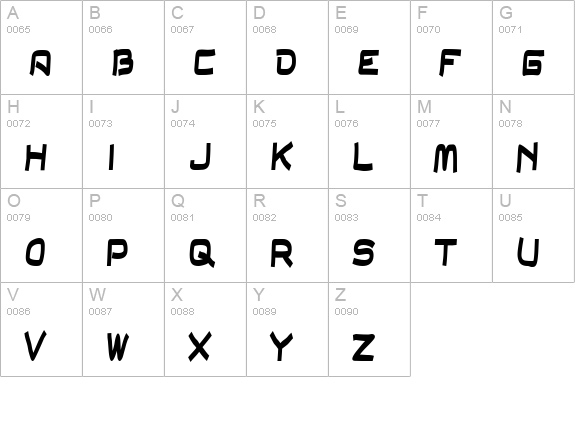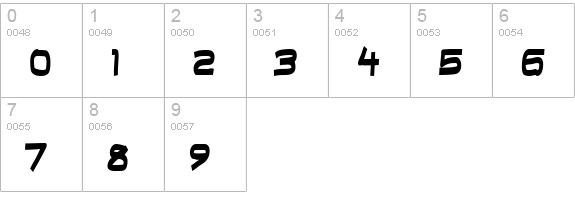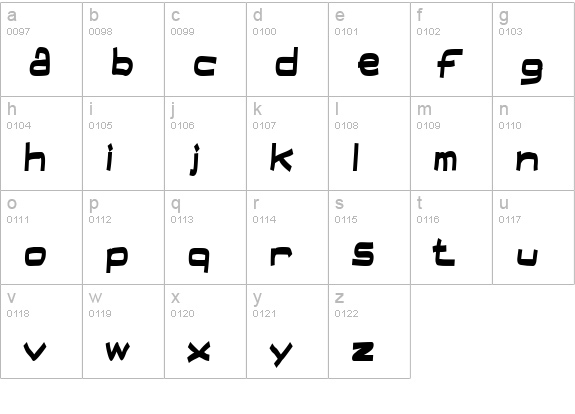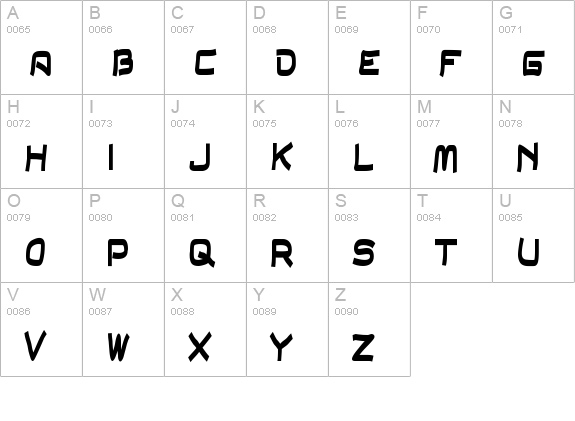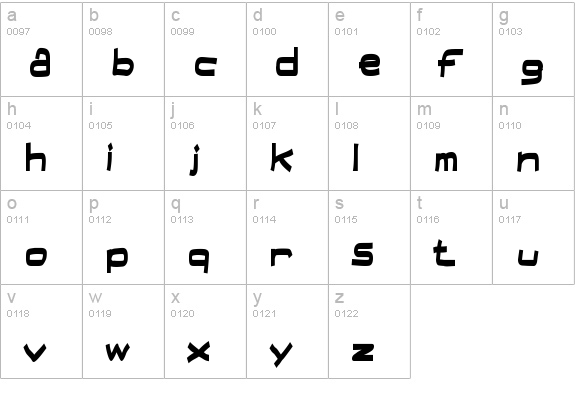
FieldDayFilter font is a modern and stylish typeface that exudes creativity and energy. Its unique design features clean lines and playful curves, making it perfect for adding a touch of fun to your projects. Whether you're working on a poster, logo, or website design, FieldDayFilter font will surely make your text stand out. The best part? FieldDayFilter font is completely free to download at FontsMarket.com. Now you can elevate your designs without breaking the bank. So why wait? Download this amazing font today and let your creativity soar!